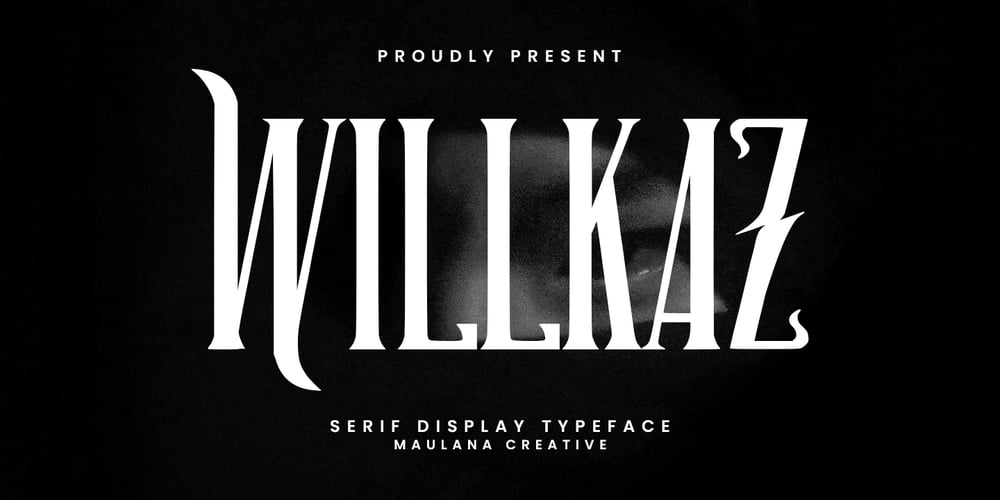
MC Willkaz Font Family was designed by Gilang Maulana and published by Maulana Creative. MC Willkaz contains 1 styles and family package options. Willkaz serif display decorative typeface font. Bold stroke, fun character with a bit of ligatures and alternates. To give you an extra creative work. Willkaz typeface display font support multilingual more than 100+ language. This font is good for logo design, Social media, Movie Titles, Books Titles, a short text even a long text letter and good for your secondary text font with script or serif. Make a stunning work with Willkaz typeface display font.Cheers,Maulana Creative